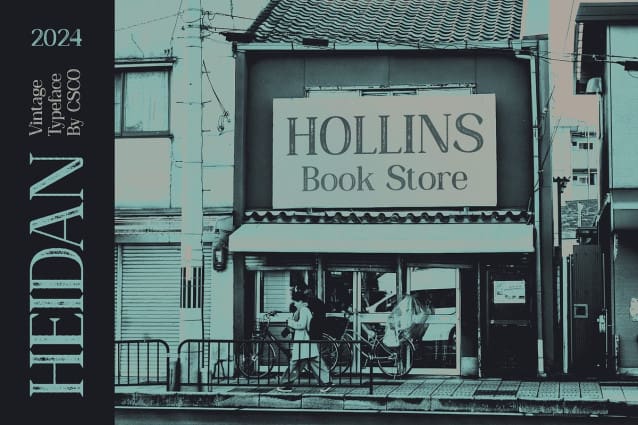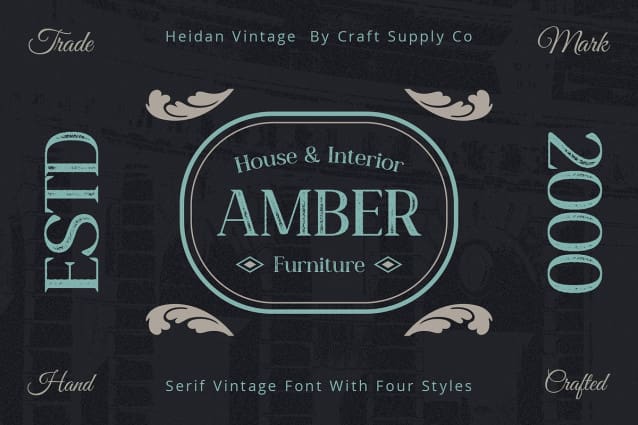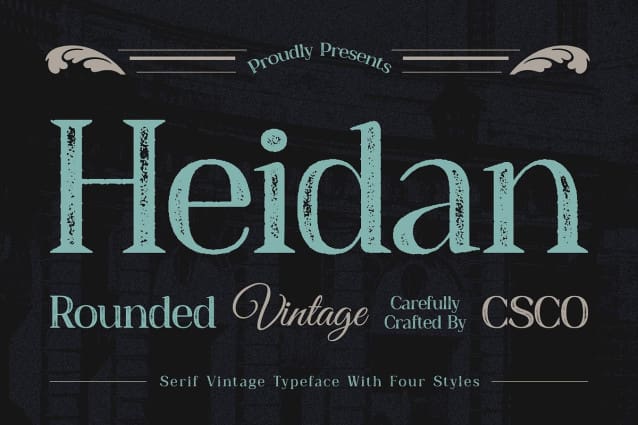
Heidan Rounded Vintage Font
Heidan Rounded Vintage Font: A Nod to Vintage Elegance. Distinctive High Contrast Serif Heidan Rounded Vintage features a striking high contrast serif design that commands attention. Its rounded stem ends add a touch of softness to the overall aesthetic.
Drawn Stamp and Rough Effects Embellished with drawn stamp and rough effects, This font exudes an authentic vintage charm. Each character carries a handcrafted appeal, reminiscent of old-world craftsmanship.
Perfect for Vintage Display Tailored for vintage-themed displays, This font excels in capturing the essence of bygone eras. Its unique combination of high contrast serif and rustic effects makes it an ideal choice for vintage-inspired projects.
Versatile Application Beyond its vintage appeal, This font offers versatility in application. Whether used in branding, packaging, or editorial design, its distinct character adds depth and personality to any project.
Vintage Elegance Redefined This font redefines vintage elegance with its distinctive high contrast serif, rounded stem ends, and handcrafted effects. Perfect for vintage-themed displays, this font adds a touch of nostalgia and sophistication to any design endeavor. Step back in time with Heidan Rounded Vintage and elevate your projects with timeless charm.